18 Fresh Free Fonts For Graphic Designers
Free fresh fonts available for commercial and personal use. Modern highest quality free fonts best for logo design, branding and any kind of typography artwork. This collection included sans serif fonts, script fonts, handwritten fonts and brush fonts which can make your design more professional. The following fonts are ideal to make an creative design and perfect for any artwork. Take a look at beautiful commercial fonts for professional design, based upon suggestions from designers all over the world.
1. Tabitha Free Font
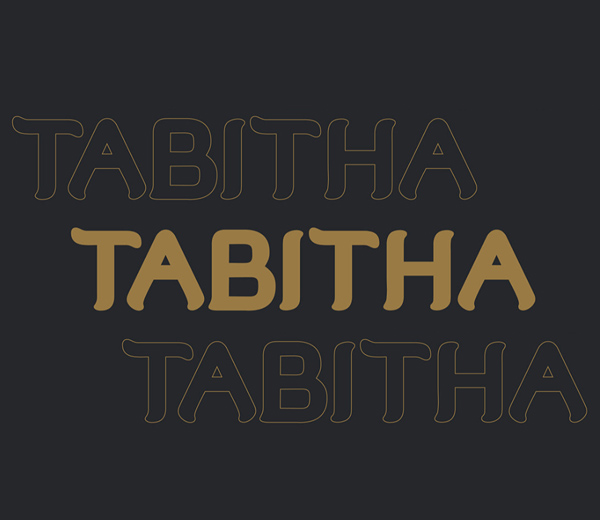
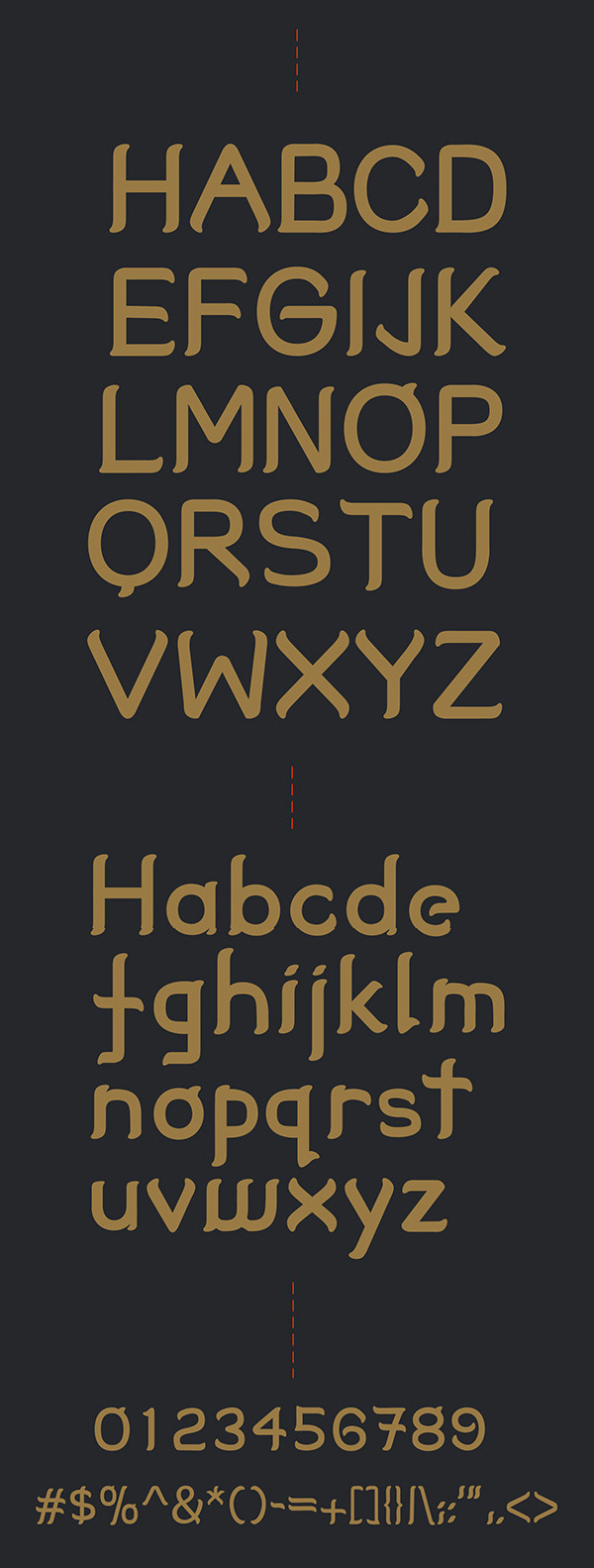
2. Karlo Cham Free Font
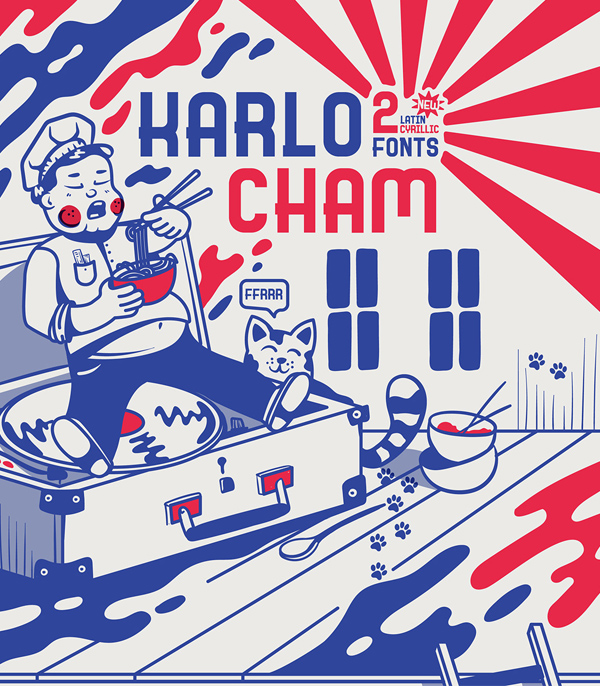
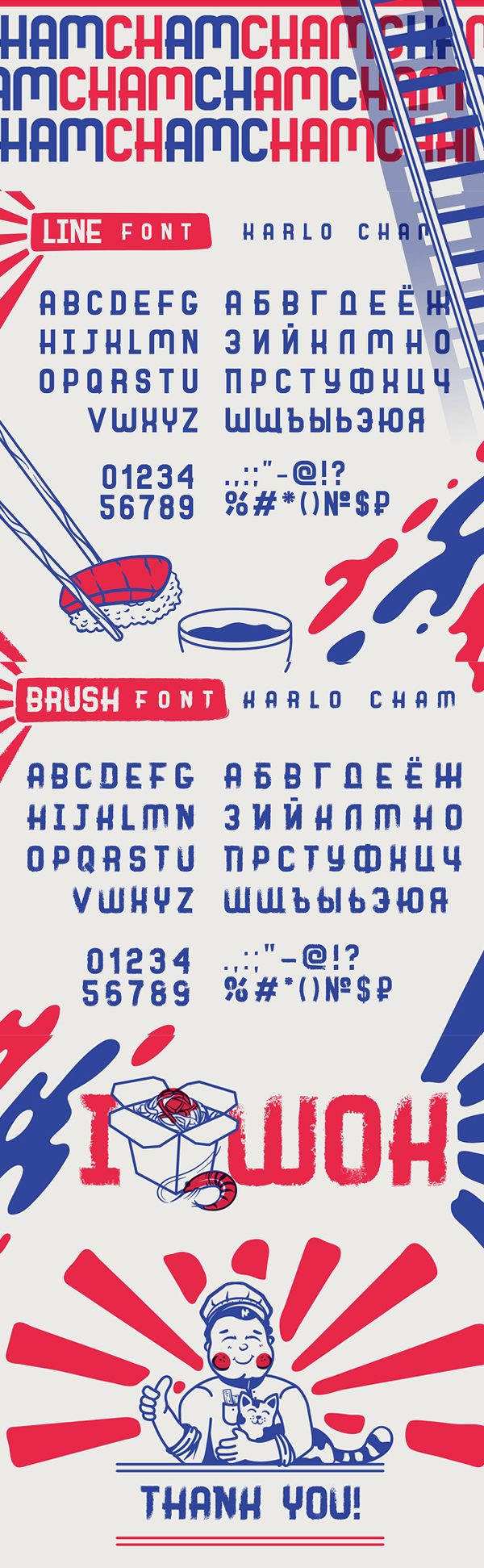
3. Alphakind Free Font
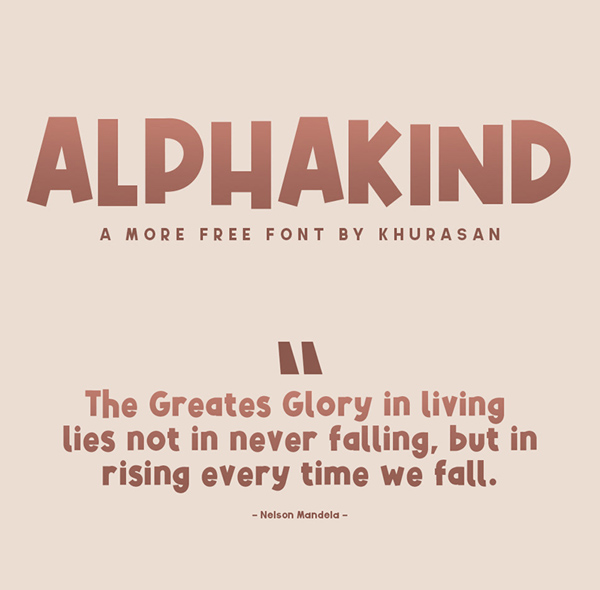
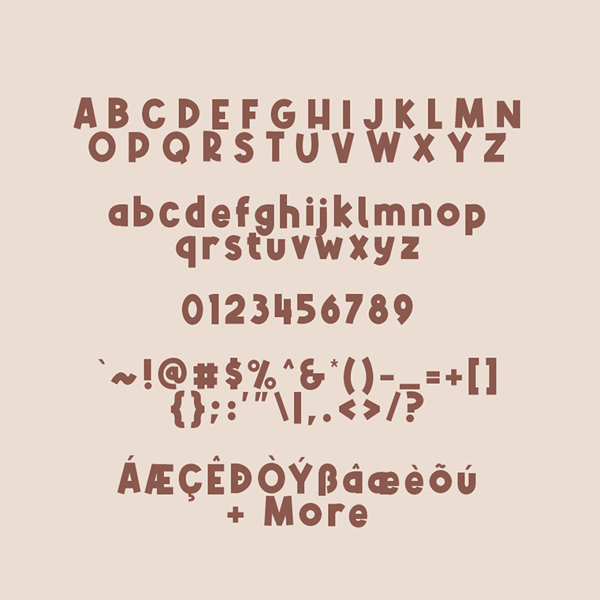
4. Beloved Romantic Script Free Font
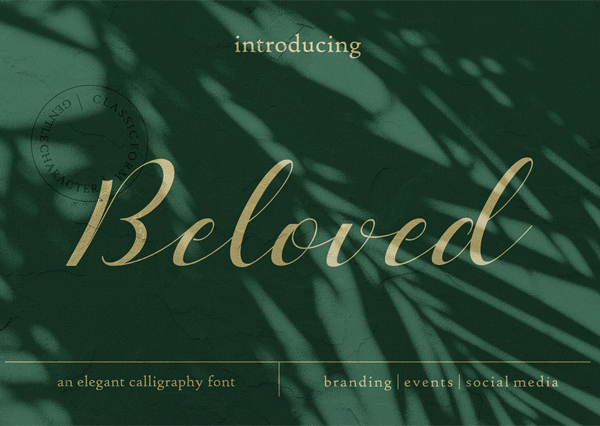
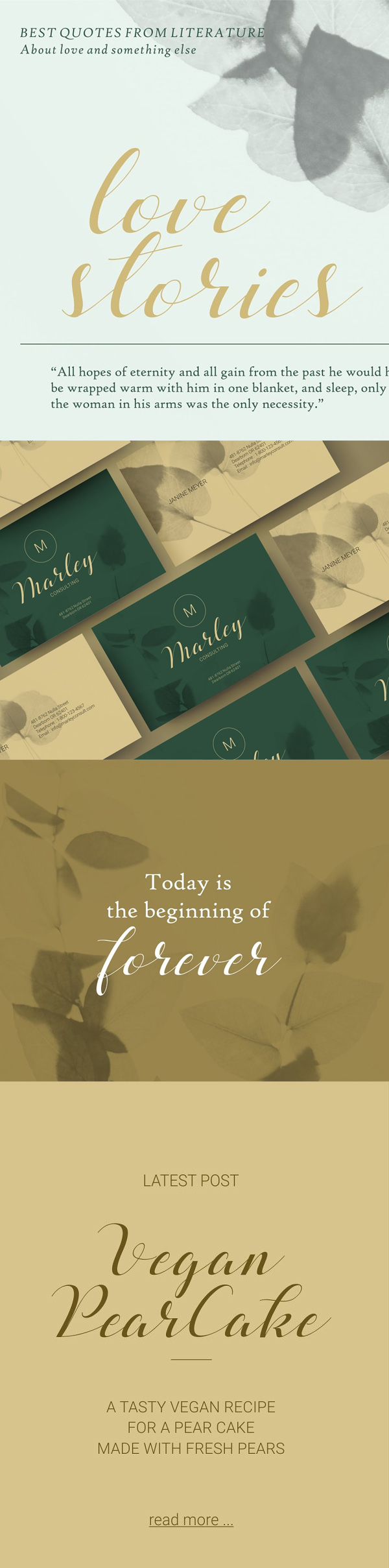
5. Trips Modular Free Font
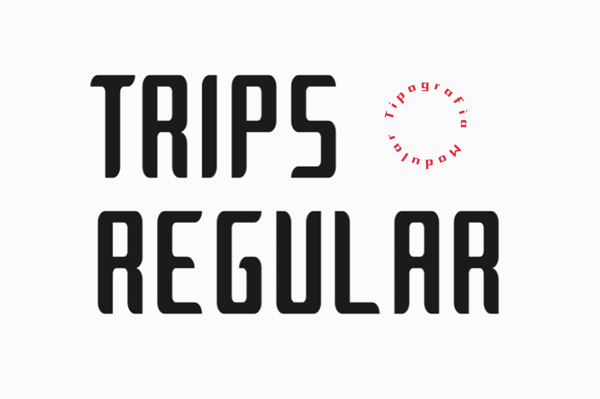
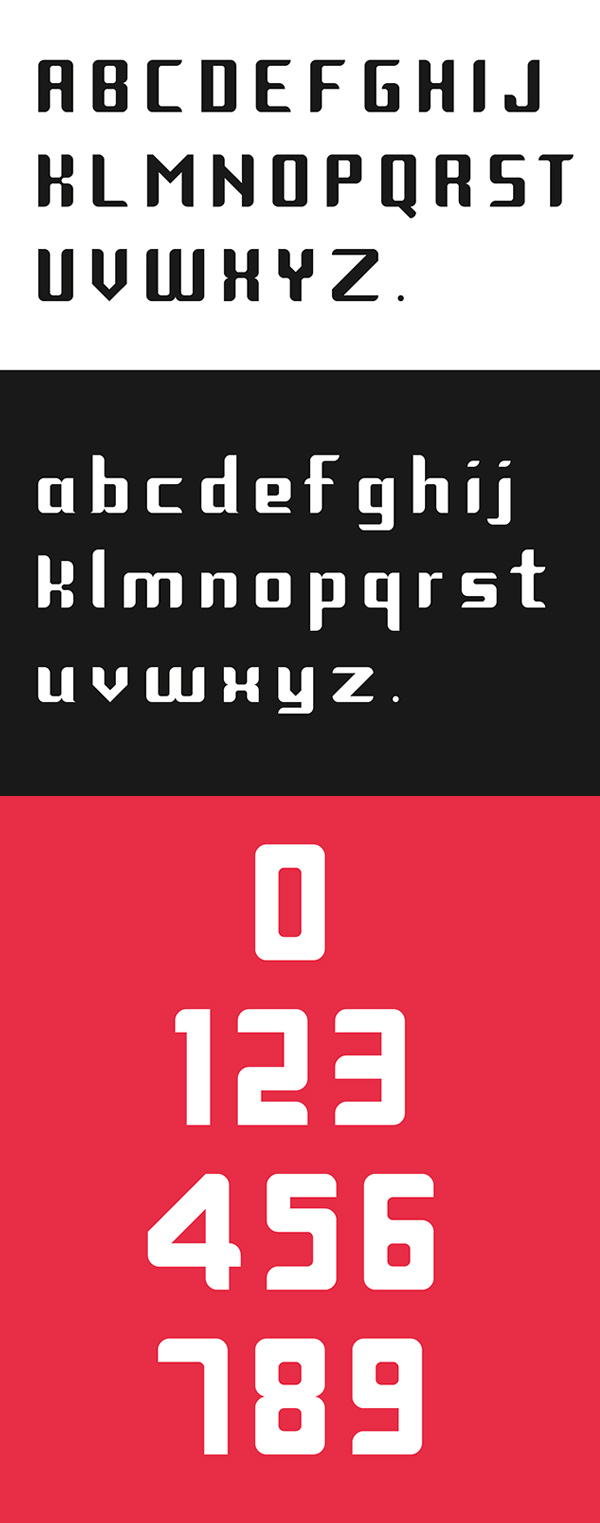
6. It’s Kind of Magic Retro Free Font
7. Sebasta Vintage Free Font
8. Far Out Free Font
9. Rondal Free Font
10. Amagro Serif Free Font
11. Prototype Free Font
12. ClawMan Free Font
13. Deutschmeister Moderne Free Font
14. Epicgant Free Font
15. Hello Star Free Font
16. Procerus Free Font
17. Jerome Romusha Free Font
18. Gravtrac Free Font
19. Rustica Slab Font Free Font